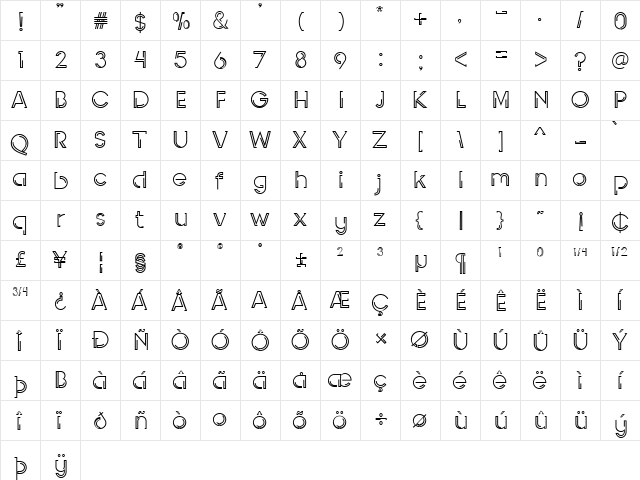
INDEPENDENT Regular
INDEPENDENT offers clean, dependable letterforms without strong stylistic allegiance, making it a practical choice for designers who need flexibility.